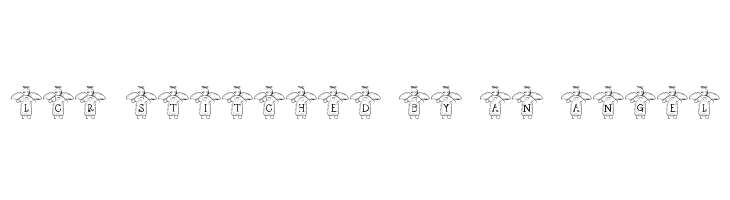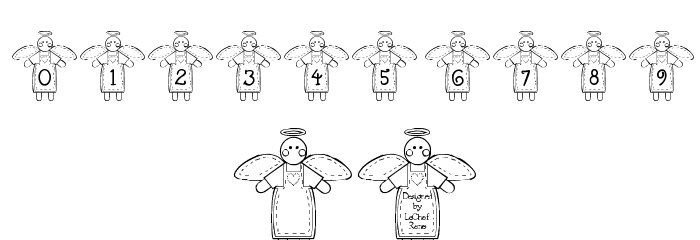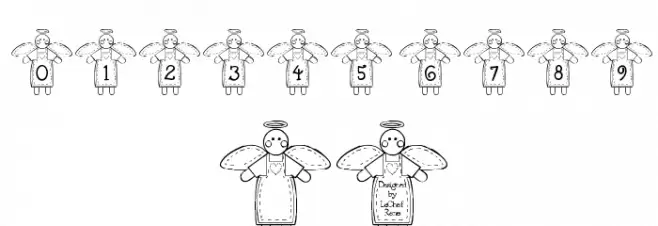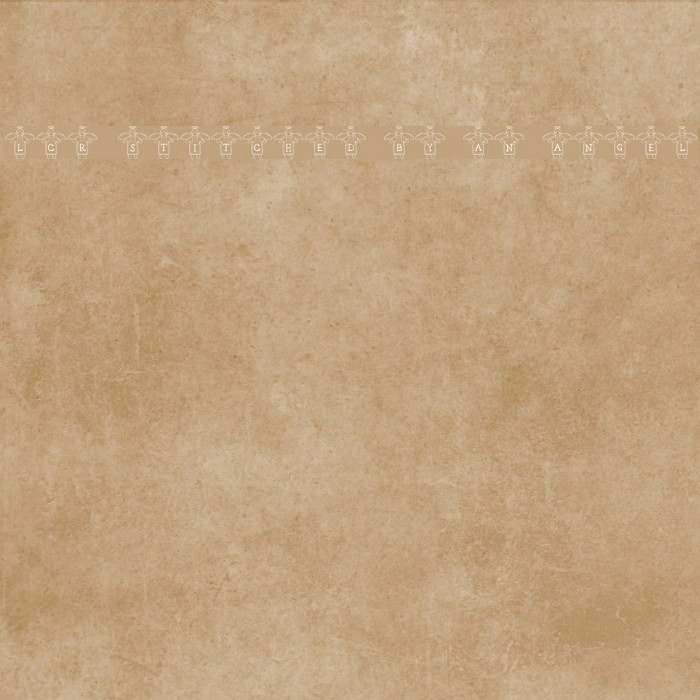
LCR Stitched by an Angel Font
LCR Stitched by an Angel Description
This whimsical font features each character encapsulated within a charming angel design, giving it a playful and unique appearance. The letters and numbers are presented in a hand-drawn style, with each character integrated into the body of an angel, complete with wings and a halo. The overall aesthetic is light-hearted and creative, making it ideal for projects that require a touch of innocence and fantasy. The font maintains a consistent style across uppercase, lowercase, and numerical characters, ensuring a cohesive look. The special characters are also incorporated into the angel motif, adding to the font's distinctiveness.
| Overall Style | Whimsical |
| Use Case | Headlines, Logos, Decorative text |
| Proposed Projects | Ideal for children's books, greeting cards, playful branding, and whimsical design projects. |